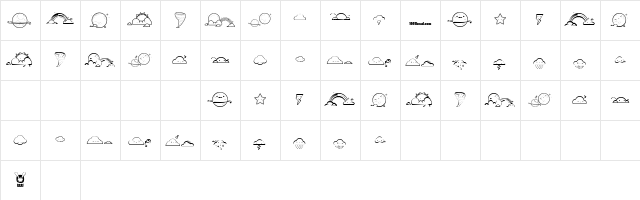
Toy Cloud Toy Cloud
Design Context for Toy Cloud Typeface
Toy Cloud is a composed and adaptable typeface that performs quietly and consistently across a wide range of design contexts.